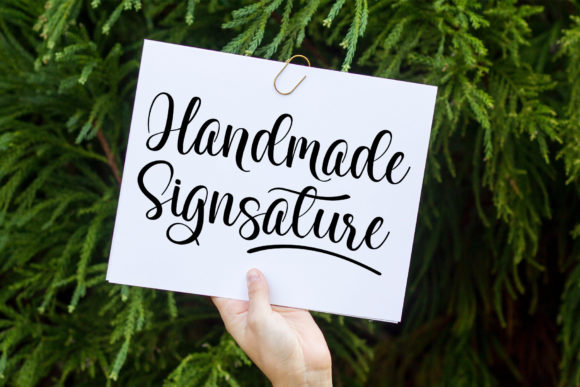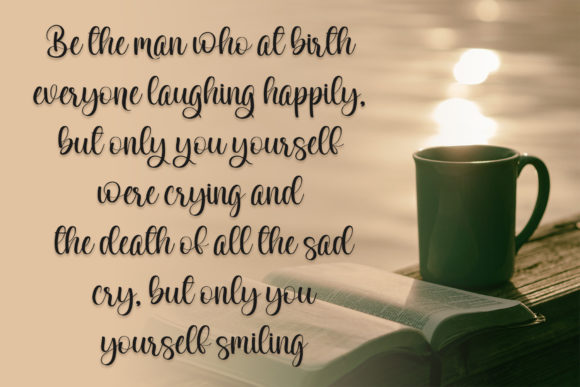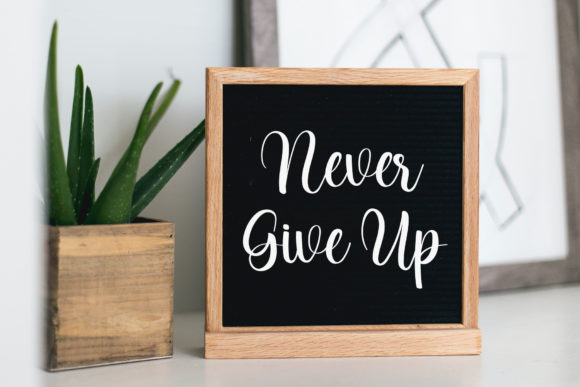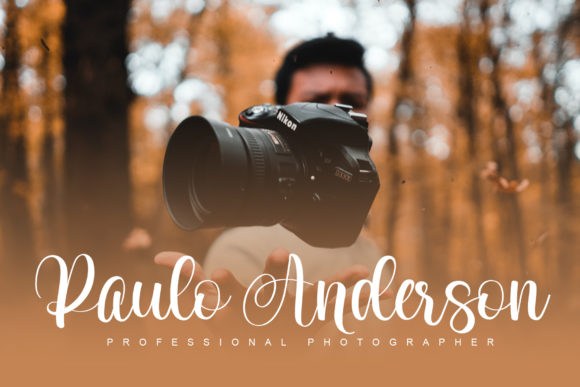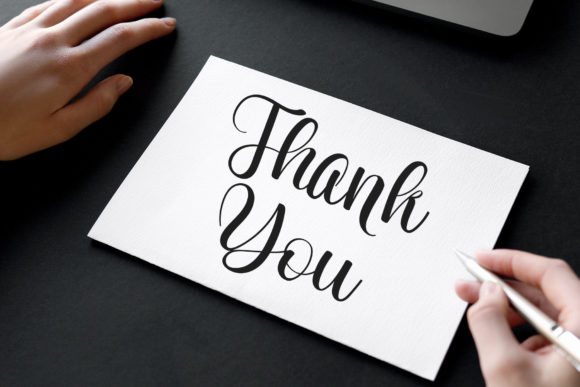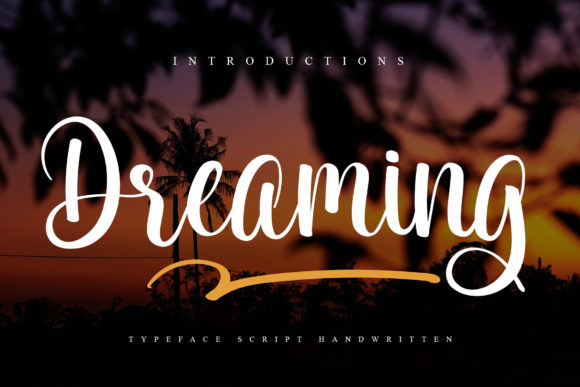
Dreaming Font: Add a Touch of Whimsy to Your Designs
Are you looking for a font that can add a touch of romance and playfulness to your designs? Look no further than the Dreaming Font! This sweet and cursive handwritten font is perfect for designers and crafters who want to create beautiful and eye-catching projects. In this article, we’ll take a closer look at the Dreaming Font and explore its features, benefits, and uses.
What is Dreaming Font?
Dreaming Font is a beautiful, cursive handwritten font that is designed to add a touch of whimsy to your designs. Its gentle and flowing curves make it perfect for creating romantic and playful designs that will capture the attention of your audience. Whether you’re working on a branding project, a wedding invitation, or a craft project, the Dreaming Font is sure to add a touch of magic to your work.
Features of Dreaming Font
The Dreaming Font has several features that make it a great choice for designers and crafters. Some of its key features include:
- Sweet and cursive handwritten style: The Dreaming Font has a beautiful, cursive handwritten style that is perfect for creating romantic and playful designs.
- Gentle and flowing curves: The font’s gentle and flowing curves make it easy to read and add a touch of elegance to your designs.
- Versatile: The Dreaming Font is versatile and can be used on a variety of design projects, from branding and advertising to wedding invitations and craft projects.
Benefits of Using Dreaming Font
There are several benefits to using the Dreaming Font in your designs. Some of the benefits include:
- Adds a touch of romance and playfulness: The Dreaming Font adds a touch of romance and playfulness to your designs, making it perfect for projects that require a whimsical touch.
- Creates a unique and eye-catching design: The font’s unique and eye-catching design will help your project stand out from the crowd.
- Perfect for a variety of design projects: The Dreaming Font is perfect for a variety of design projects, from branding and advertising to wedding invitations and craft projects.
- Increases engagement: The font’s playful and romantic style can help increase engagement and make your project more memorable.
Uses of Dreaming Font
The Dreaming Font can be used on a variety of design projects, including:
- Branding and advertising: The font is perfect for creating eye-catching logos, advertisements, and marketing materials.
- Wedding invitations and stationery: The Dreaming Font is perfect for creating beautiful and romantic wedding invitations and stationery.
- Craft projects: The font is great for craft projects, such as scrapbooking, card making, and DIY projects.
- Social media graphics: The Dreaming Font can be used to create eye-catching social media graphics, such as Facebook posts and Instagram stories.
Tips for Using Dreaming Font
Here are some tips for using the Dreaming Font in your designs:
- Use it with a simple background: The Dreaming Font looks best with a simple background that won’t distract from the text.
- Experiment with different colors: The font looks great in a variety of colors, so experiment with different colors to find the one that works best for your project.
- Use it sparingly: The Dreaming Font is a decorative font, so use it sparingly to avoid overwhelming your design.
- Pair it with other fonts: The font can be paired with other fonts to create a unique and eye-catching design.
The Dreaming Font is a beautiful and versatile font that can add a touch of romance and playfulness to your designs. Its sweet and cursive handwritten style makes it perfect for a variety of design projects, from branding and advertising to wedding invitations and craft projects. With its gentle and flowing curves, the Dreaming Font is sure to capture the attention of your audience and make your project stand out from the crowd.